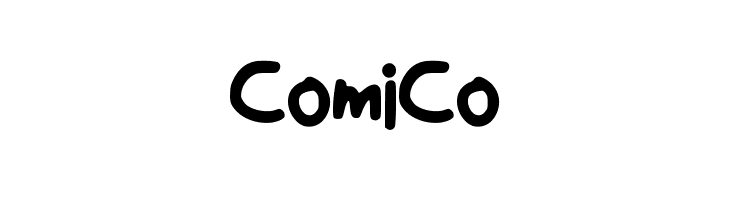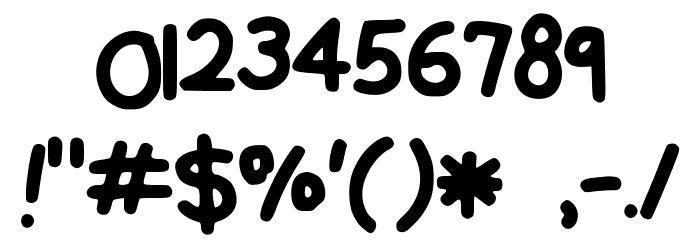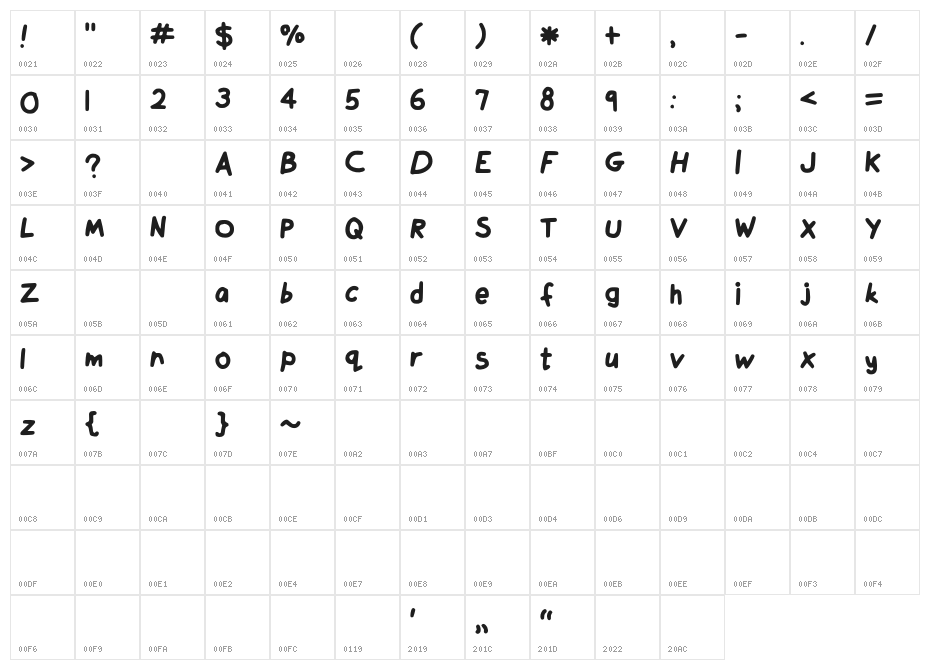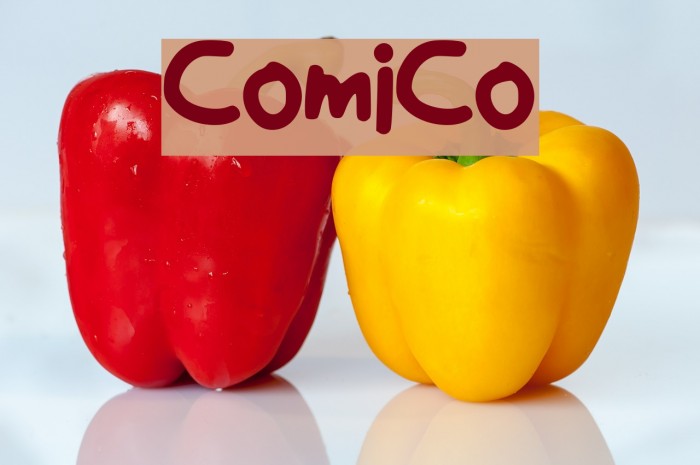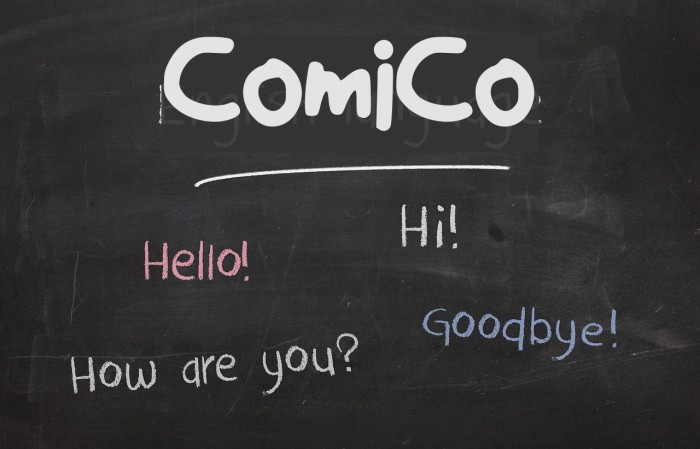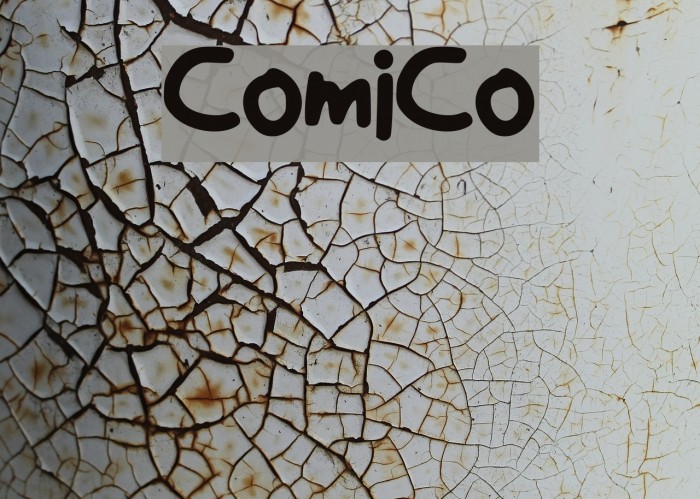
ComiCo Font
ComiCo Description
This playful and bold font features rounded, thick strokes that give it a friendly and approachable appearance. The characters are slightly irregular, adding a hand-drawn feel that enhances its casual and informal style. The uppercase and lowercase letters maintain a consistent weight, while the numerals and special characters are designed to match the overall aesthetic. Its whimsical nature makes it ideal for projects that require a fun and lively touch.
| Proposed Projects | Ideal for comic books, children's books, playful branding, and casual invitations. |